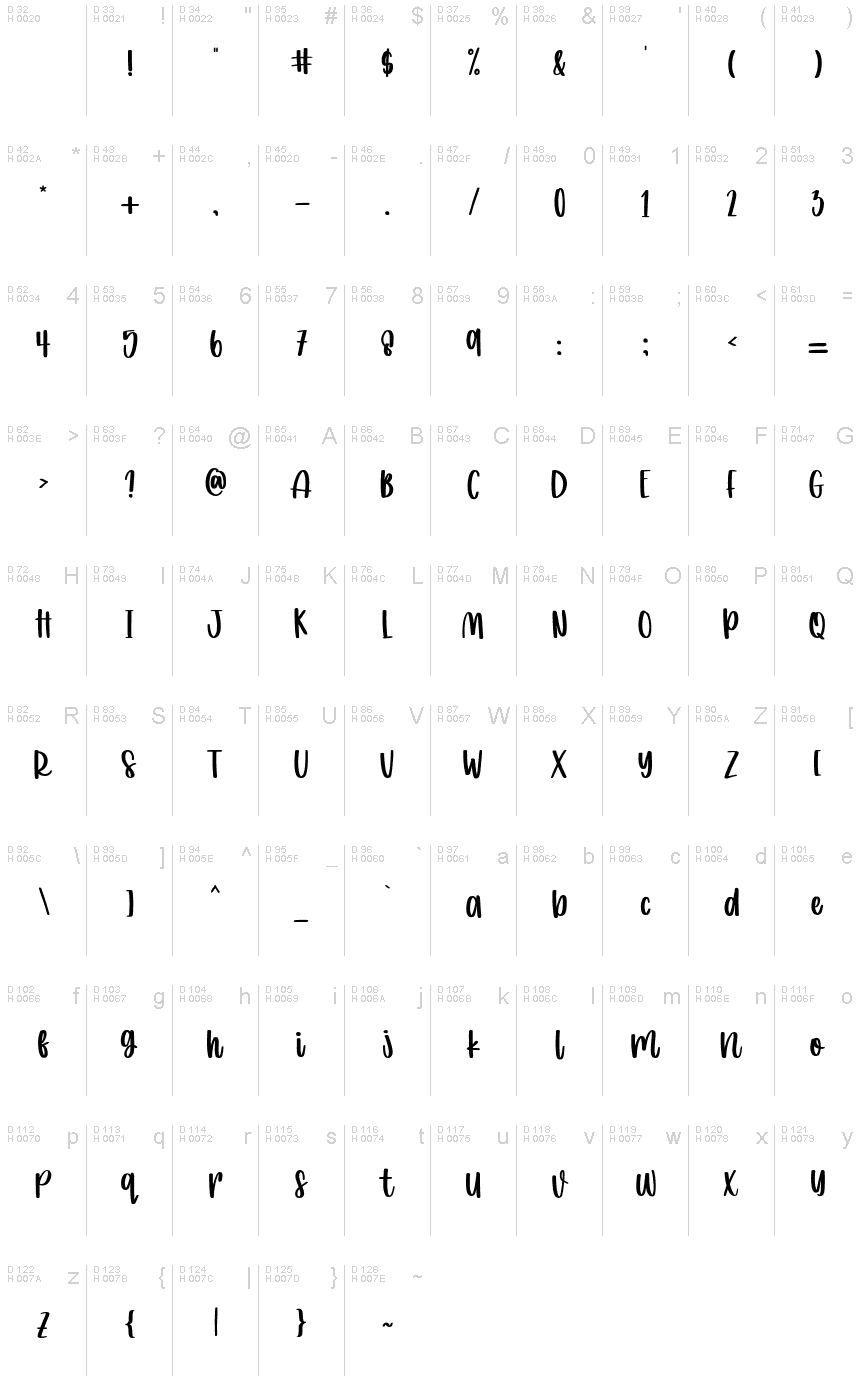
Christmas Cookies
Bring some festive cheer to your designs with Christmas Cookies, the latest handwritten font from Mozatype. This condensed marker-style typeface is perfect for adding a personal touch to your holiday-themed projects. With its playful, yet elegant design, Christmas Cookies is ideal for creating greeting cards, gift tags, social media graphics and more. Its unique style will make any message stand out in a sea of traditional holiday typography. Spread the warmth and joy of the season with Christmas Cookies font!